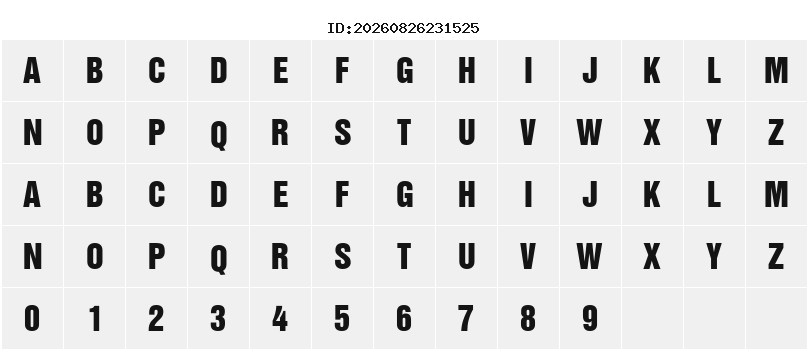
.VnHelvetInsH.ttf
About .VnHelvetInsH.ttf
.VnHelvetInsH.ttf is a modern, elegant sans-serif font designed for ultimate readability and visual harmony. Perfect for branding, headlines, web design, and print materials.